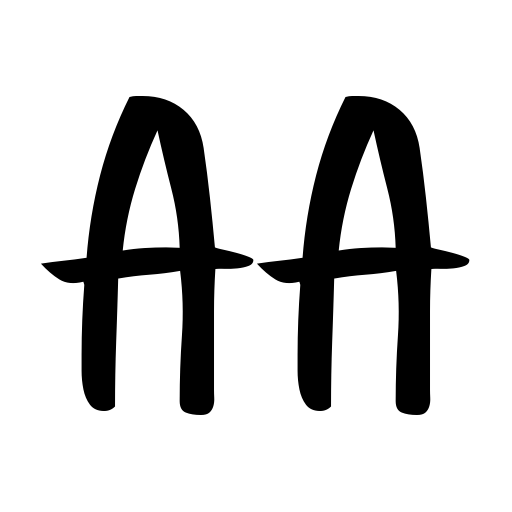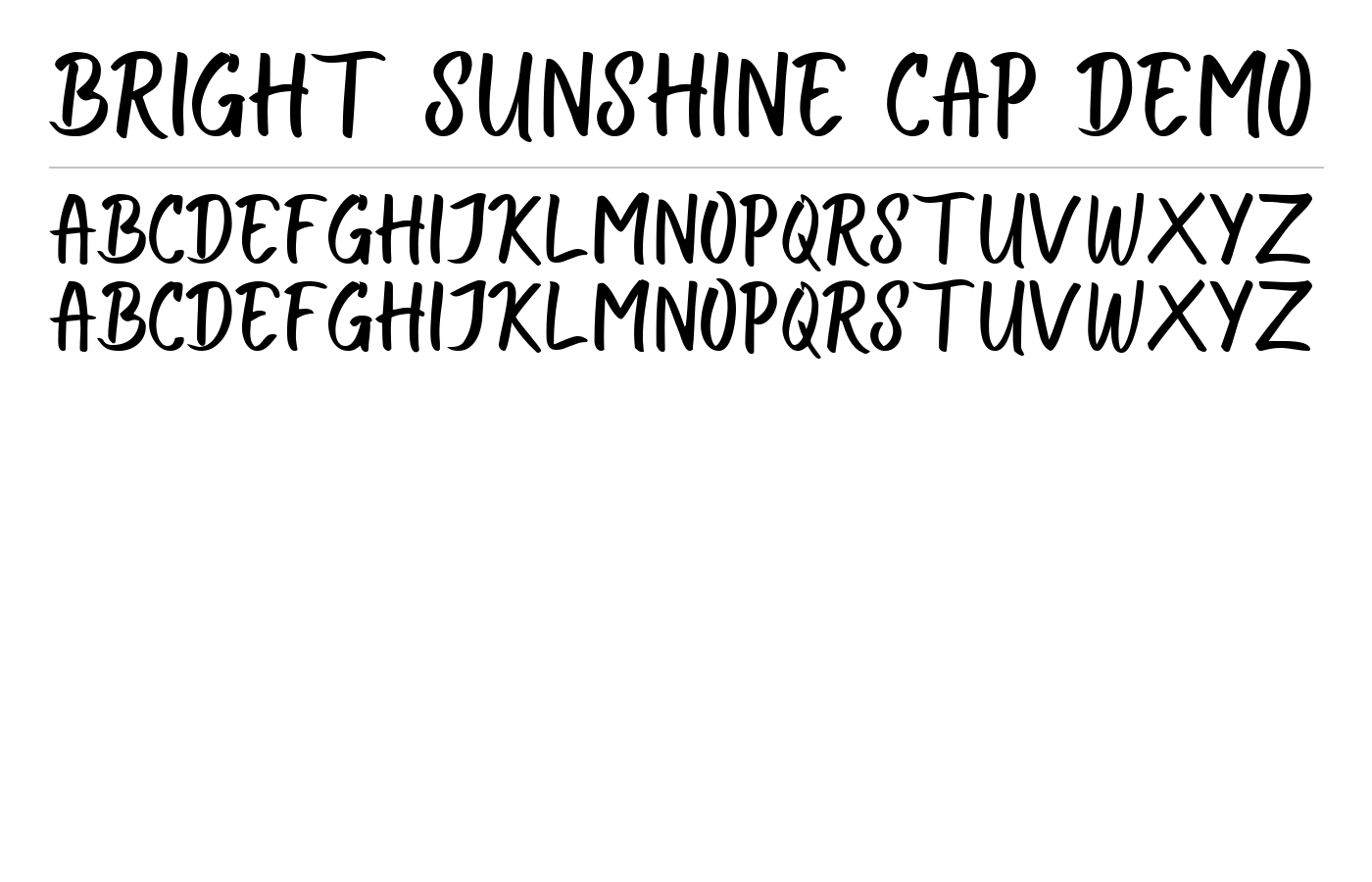
Bright Sunshine Cap Demo is a playful, casual handwritten sans serif font featuring lively, uneven strokes that give it a friendly and approachable character. Its tall, slightly condensed letterforms with moderate contrast and rounded edges make it perfect for cheerful branding, informal headlines, or creative projects seeking a warm, energetic vibe. This font works well in logos, packaging, and posters where a personal, hand-crafted feel is desired.
Bright Sunshine Cap Demo Font
About Bright Sunshine Cap Demo Font